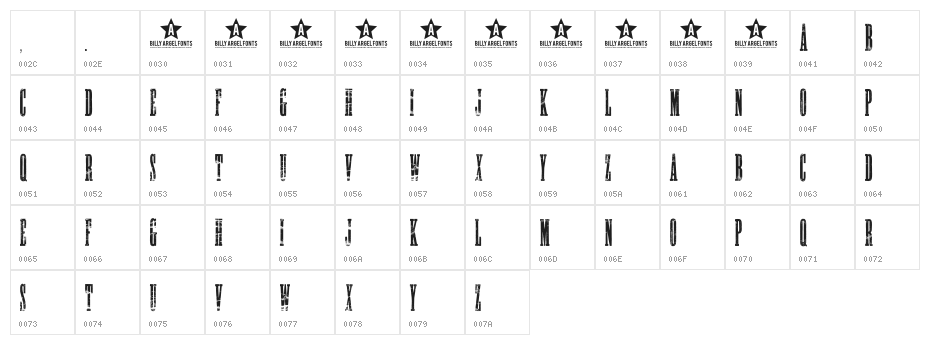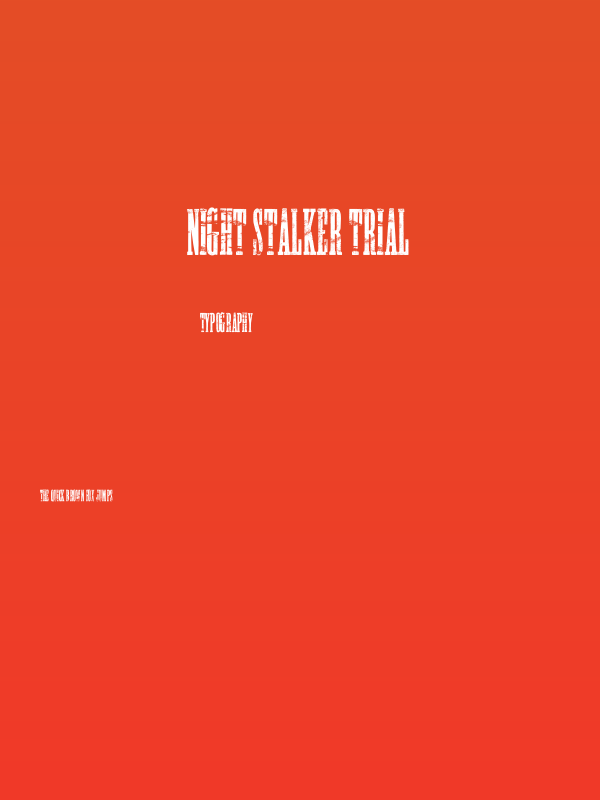
NIGHT STALKER TRIAL Font
NIGHT STALKER TRIAL Description
This font features a bold and distressed style, characterized by its rough, textured appearance that gives it a gritty and rugged look. The uppercase letters are tall and narrow, with a consistent width that adds to its imposing presence. The distressed effect is prominent, with irregularities and a worn-out look that suggests a vintage or grunge aesthetic. This font is ideal for creating impactful designs that require a bold statement, such as posters, album covers, or branding for edgy products.
| Proposed Projects | Ideal for posters, album covers, branding for edgy products, and any design needing a bold, vintage look. |